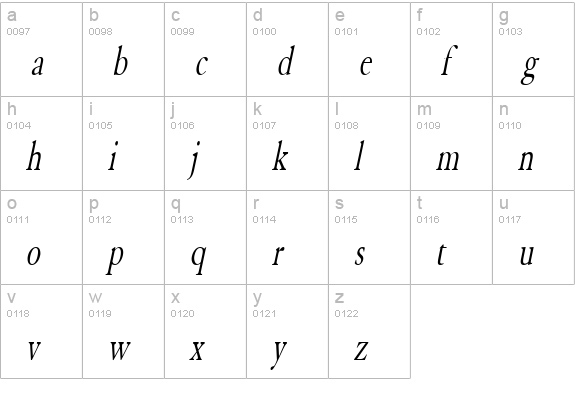
Elephant Thin Italic is a delicate, low-contrast, italic variant in the Elephant typeface family \xE2\x80\x94 well suited to fashion editorial, minimal branding, and high-contrast display.
Introducing Elephant Thin Italic font, a sleek and elegant typeface perfect for adding a touch of sophistication to your designs. This font features thin, slanted characters that exude a modern and stylish feel. The delicate curves and subtle angles of Elephant Thin Italic create a unique and eye-catching look that is sure to make your text stand out. And the best part? Elephant Thin Italic font is completely free to download at FontsMarket.com. Whether you're working on a branding project, designing a website, or creating a print layout, this font is a versatile choice that will elevate your work to the next level. Don't miss out on the opportunity to enhance your designs with the timeless elegance of Elephant Thin Italic font. Download it now and see the difference it can make!